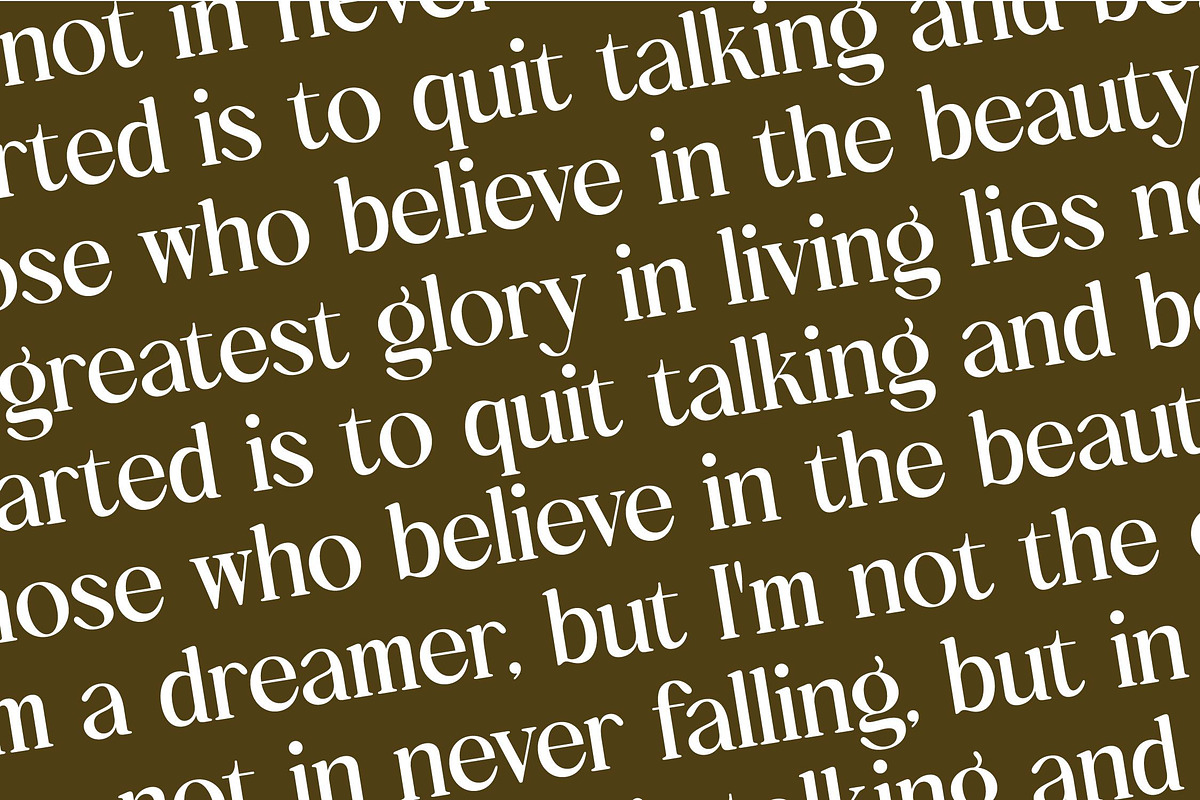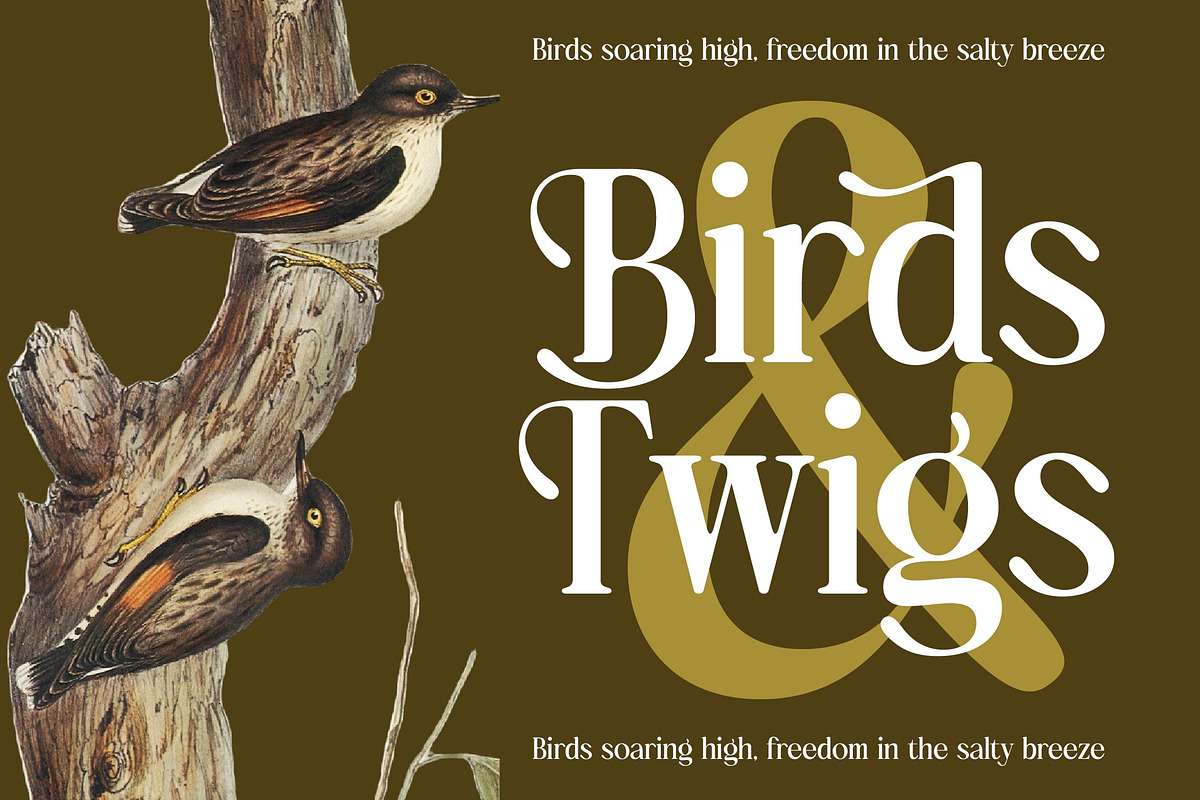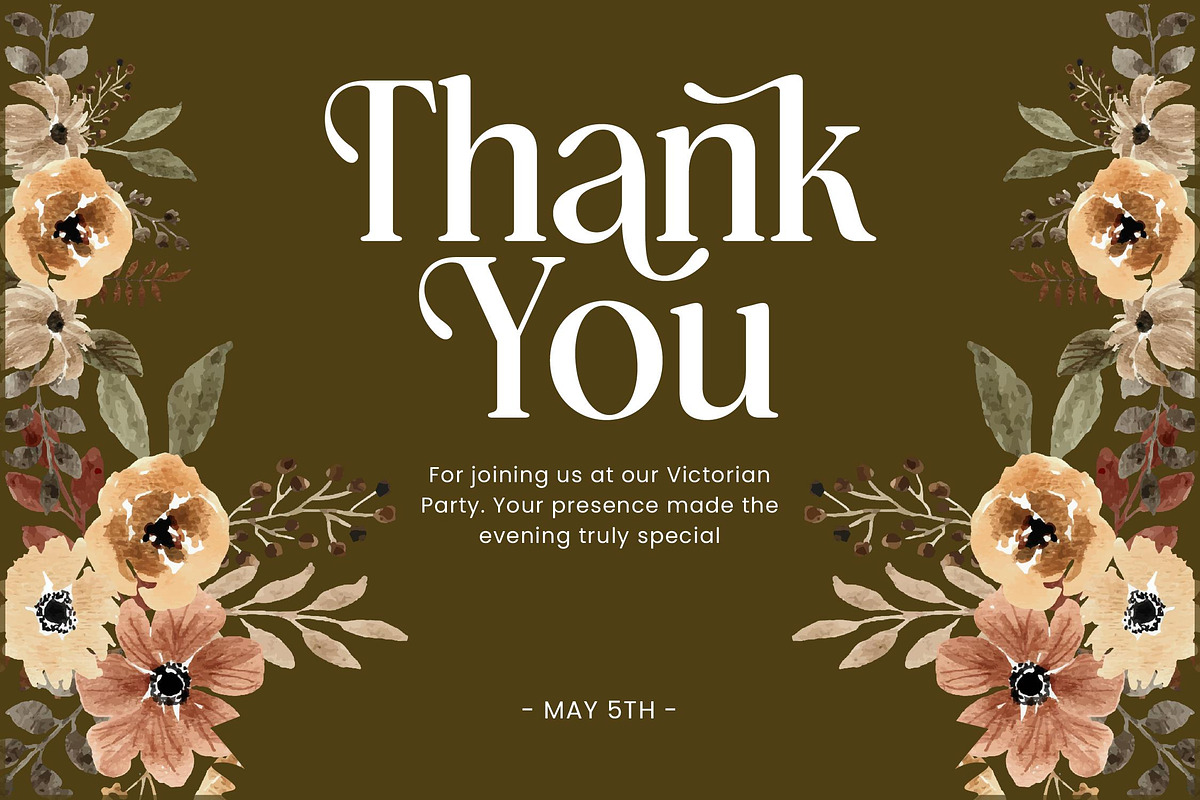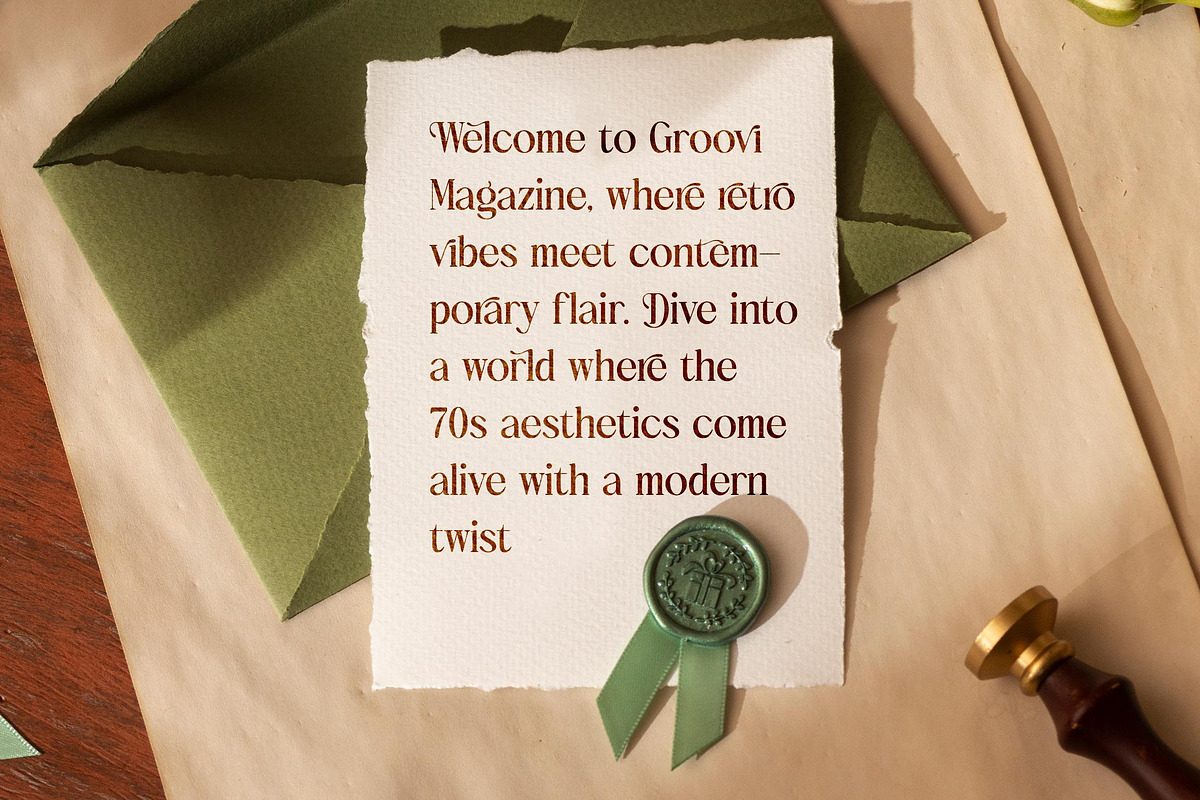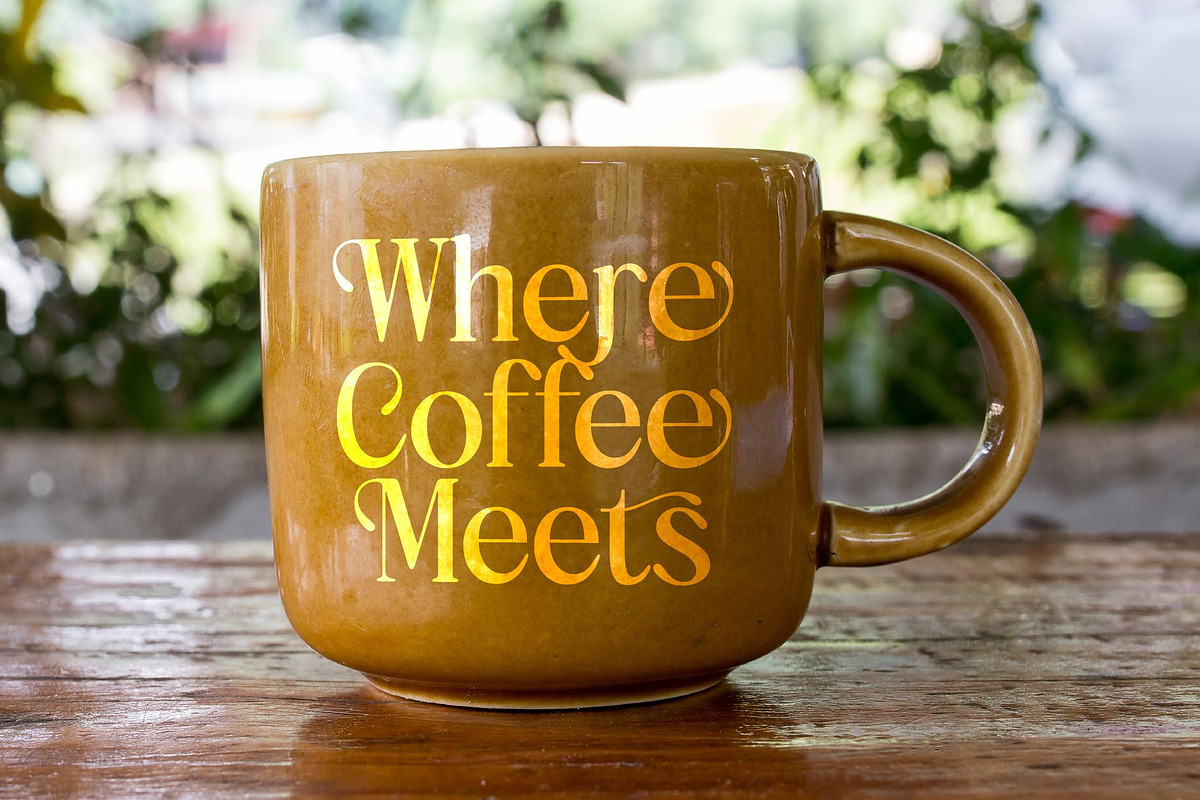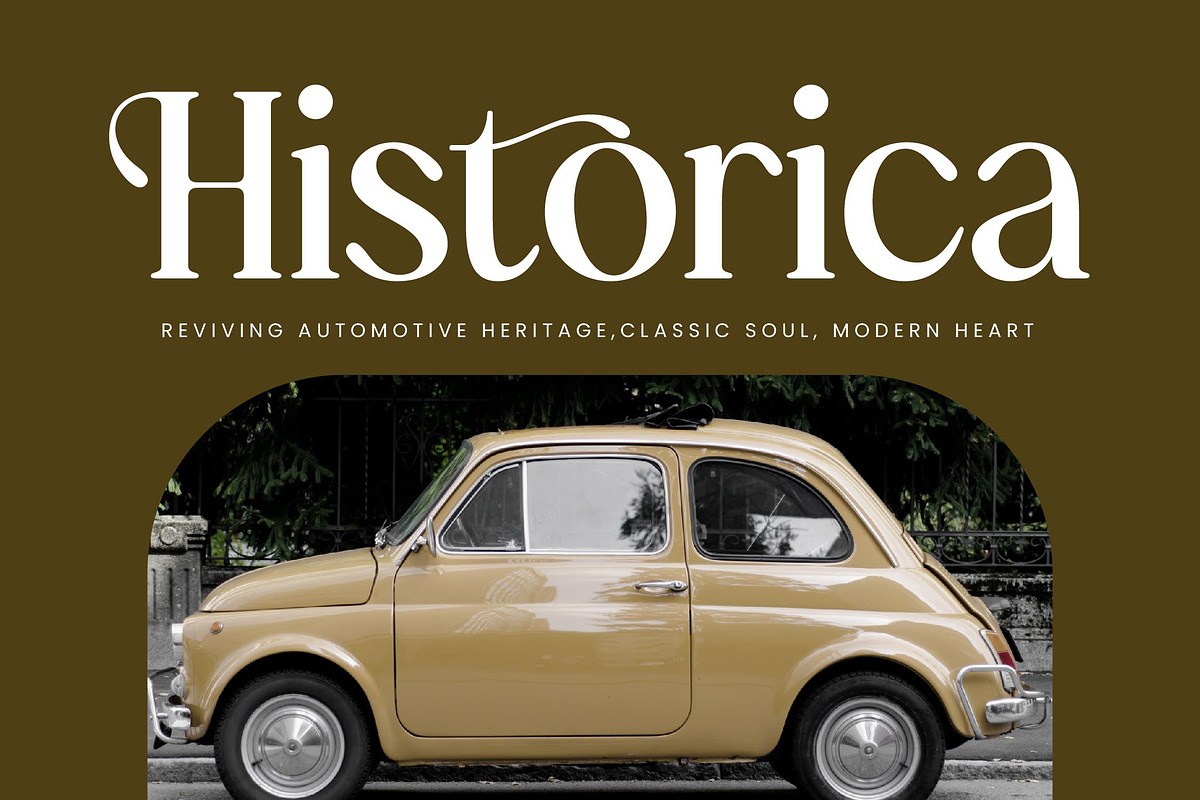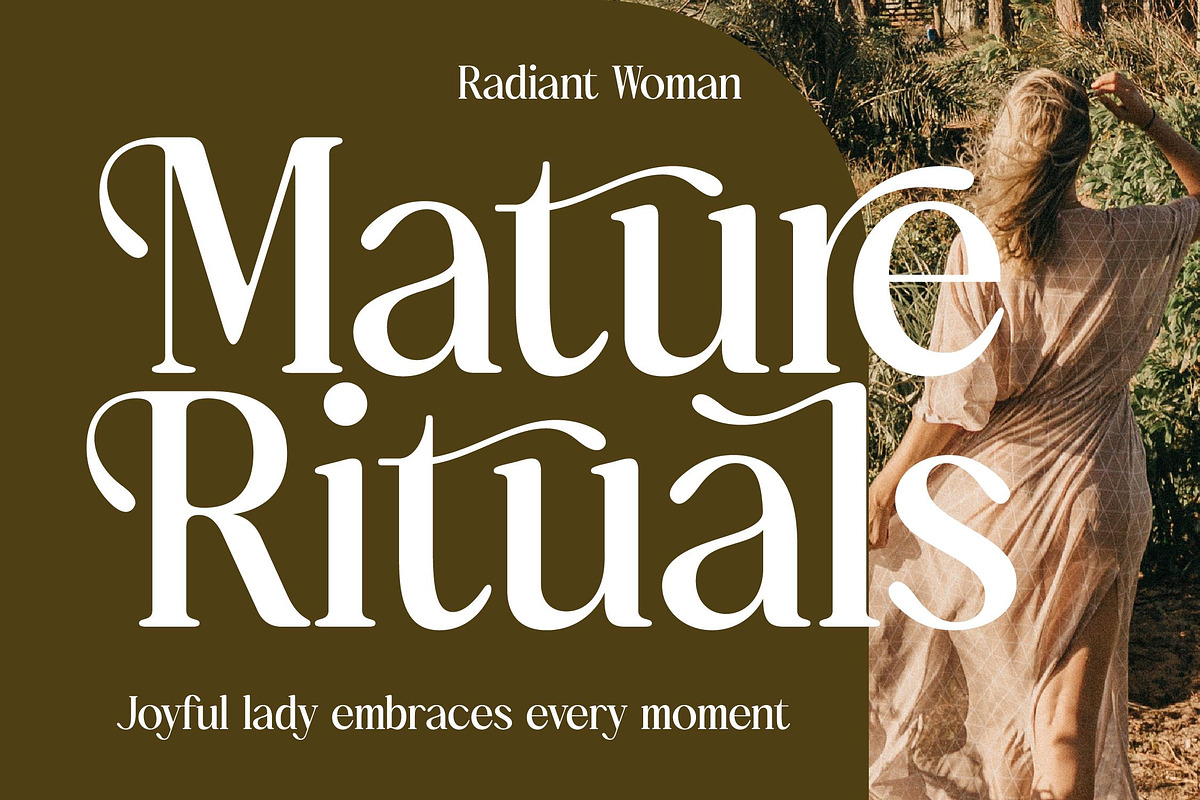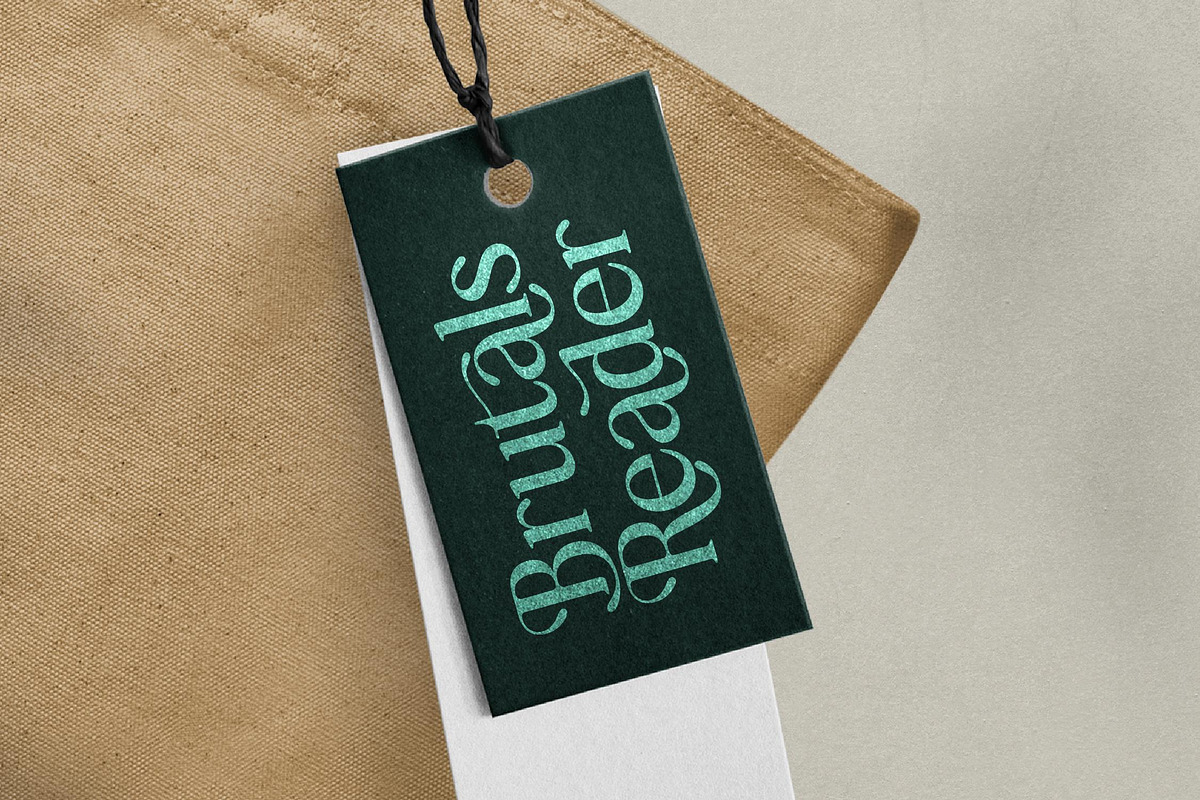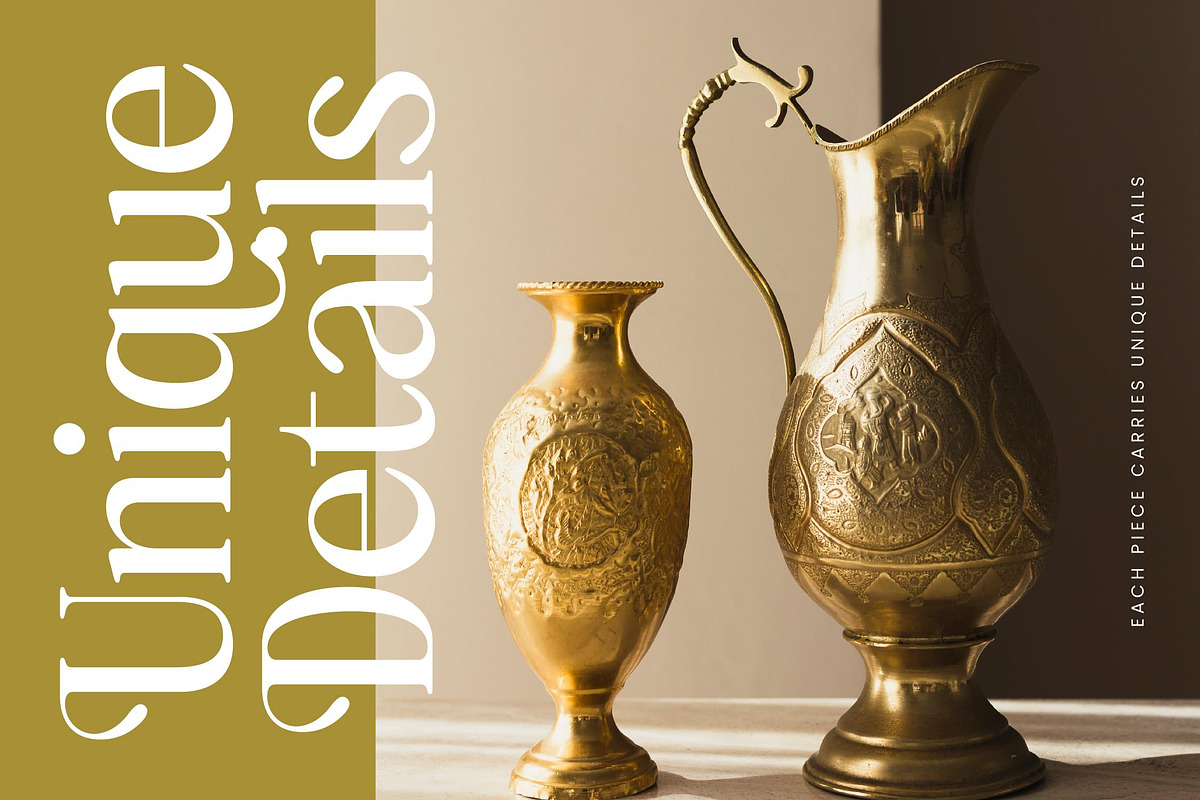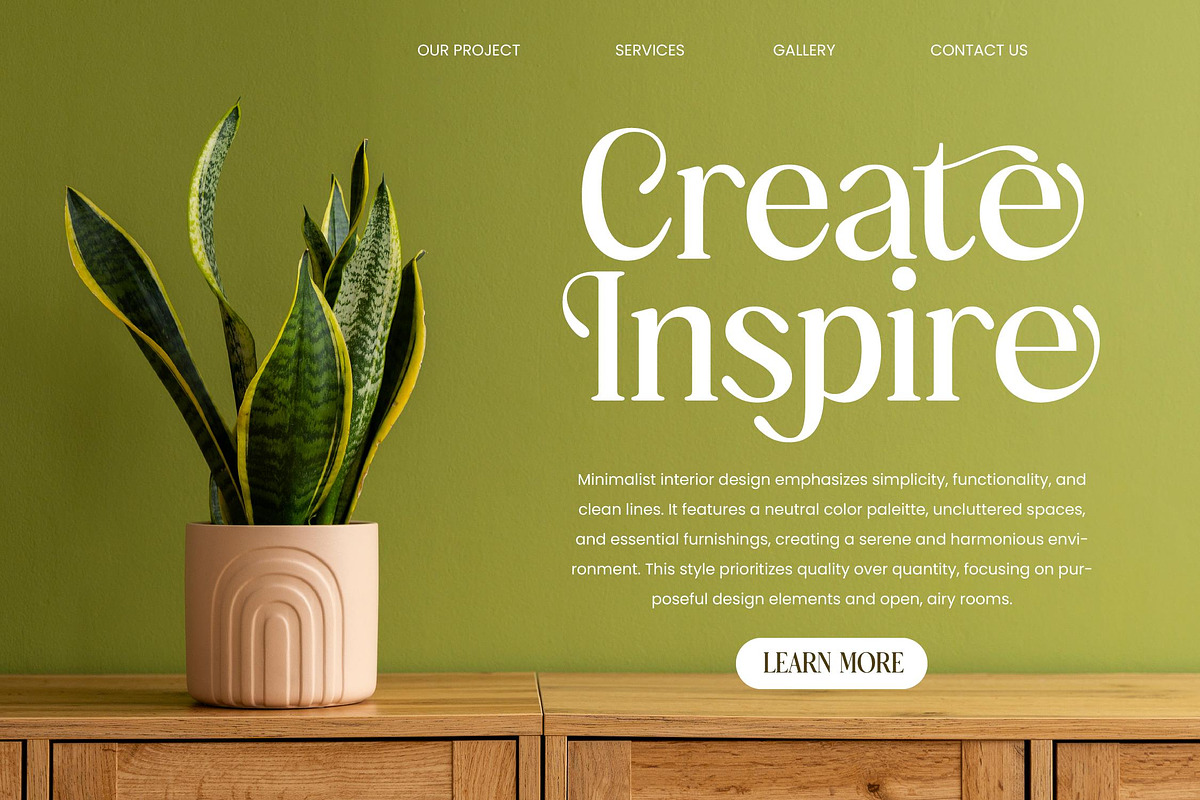
Bulings Nature Vintage Serif
Bulings Nature is a masterclass in organic elegance, blending the timeless grace of classic serifs with a contemporary flourish that captures the very essence of refined beauty.
Inspired by the rhythmic curves of botanical forms and the nostalgic charm of vintage orchard signage, this typeface evokes a sense of sun-drenched heritage and artisanal craftsmanship.
This modern serif display delivers a high-tier luxury typography experience, utilizing its high-contrast serif design to command attention while maintaining a soft, inviting editorial font presence that ensures a lasting branding impact.
Perfectly aligned with the current modern serif trend, this typeface meets the demand for editorial display fonts that offer more than just legibility, providing the character-driven typography needed to stand out in a saturated digital landscape.
It is the ultimate choice for sophisticated logo design and high-end branding projects, performing exceptionally well in editorial layouts, luxury packaging, romantic wedding stationery, and avant-garde fashion campaigns.
The package is exceptionally robust, featuring 407 glyphs including a massive library of 118 ligatures and 57 alternates to create custom looks, alongside full swashes support and multilingual capabilities with international characters.
- Ligature 18 Alternate 57